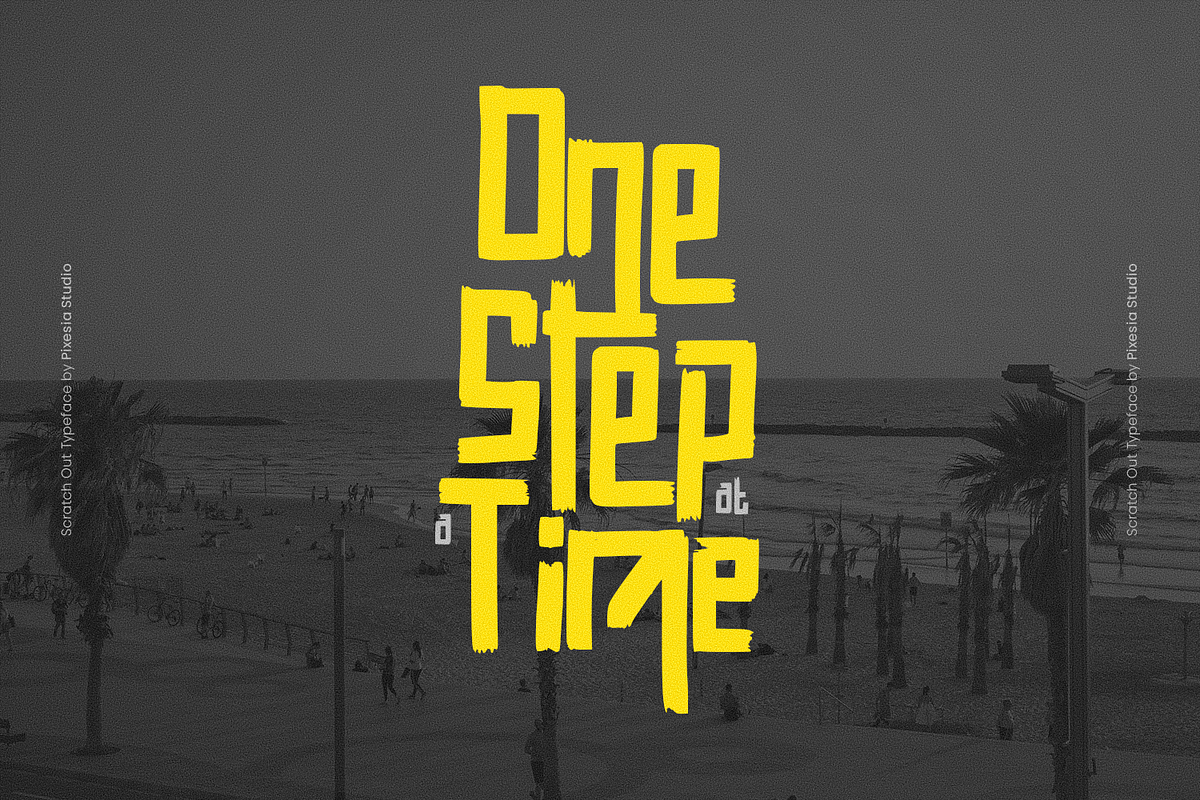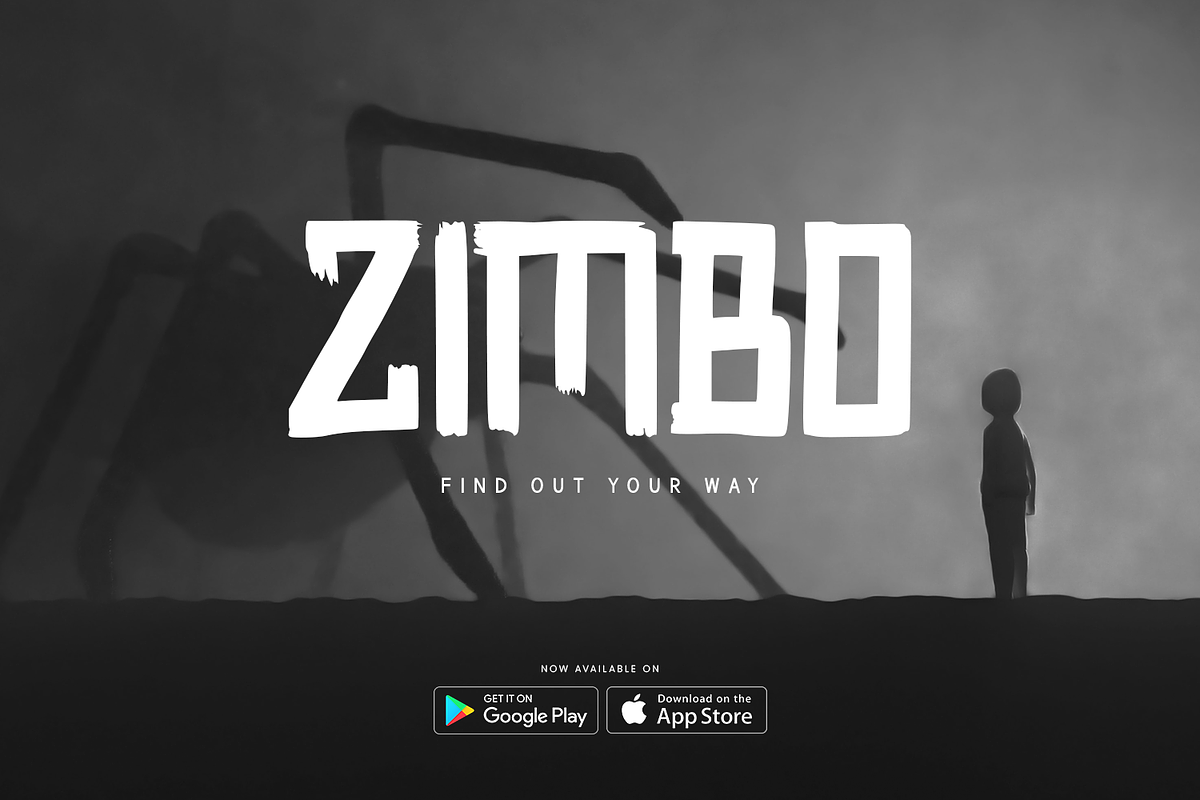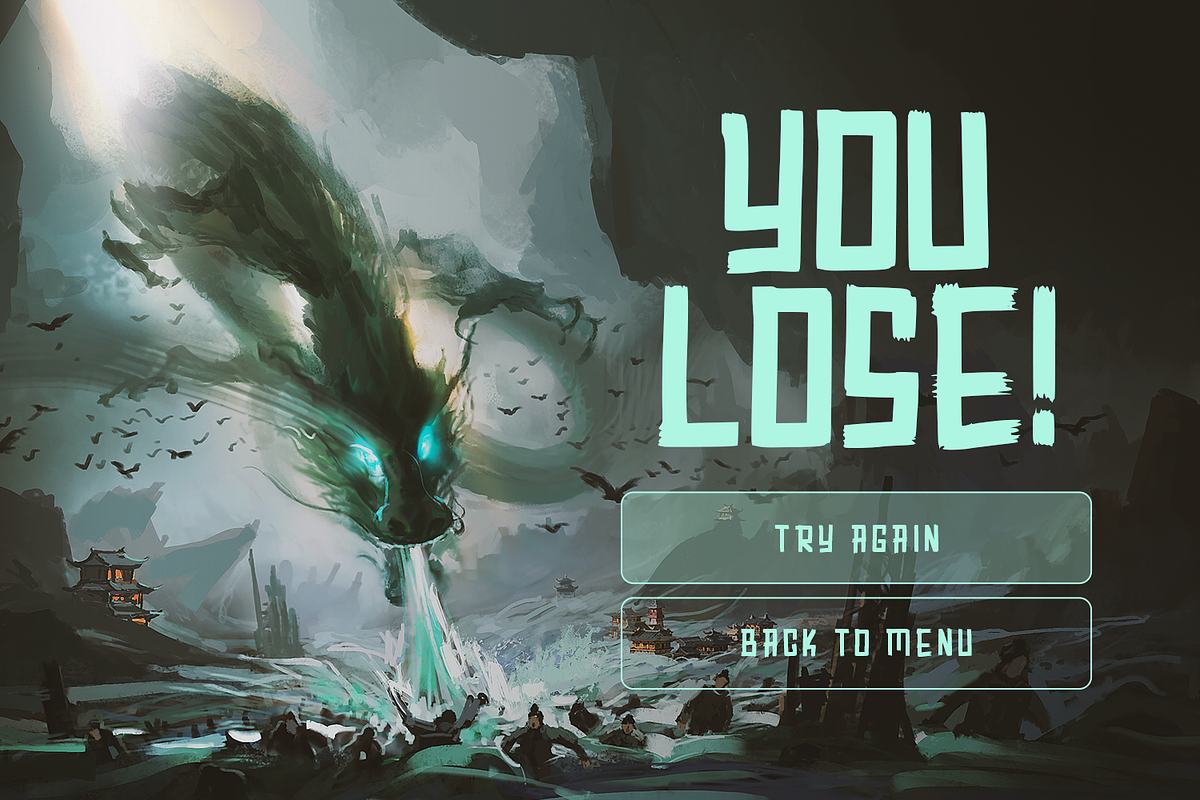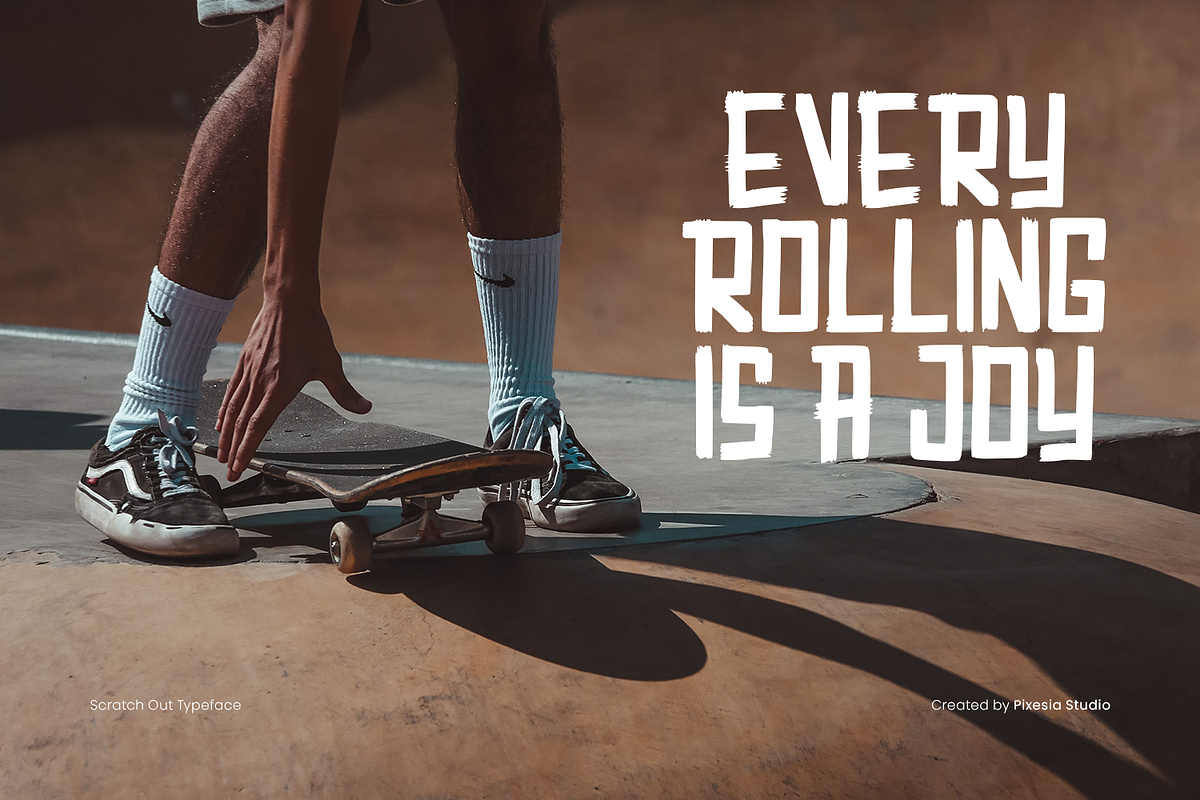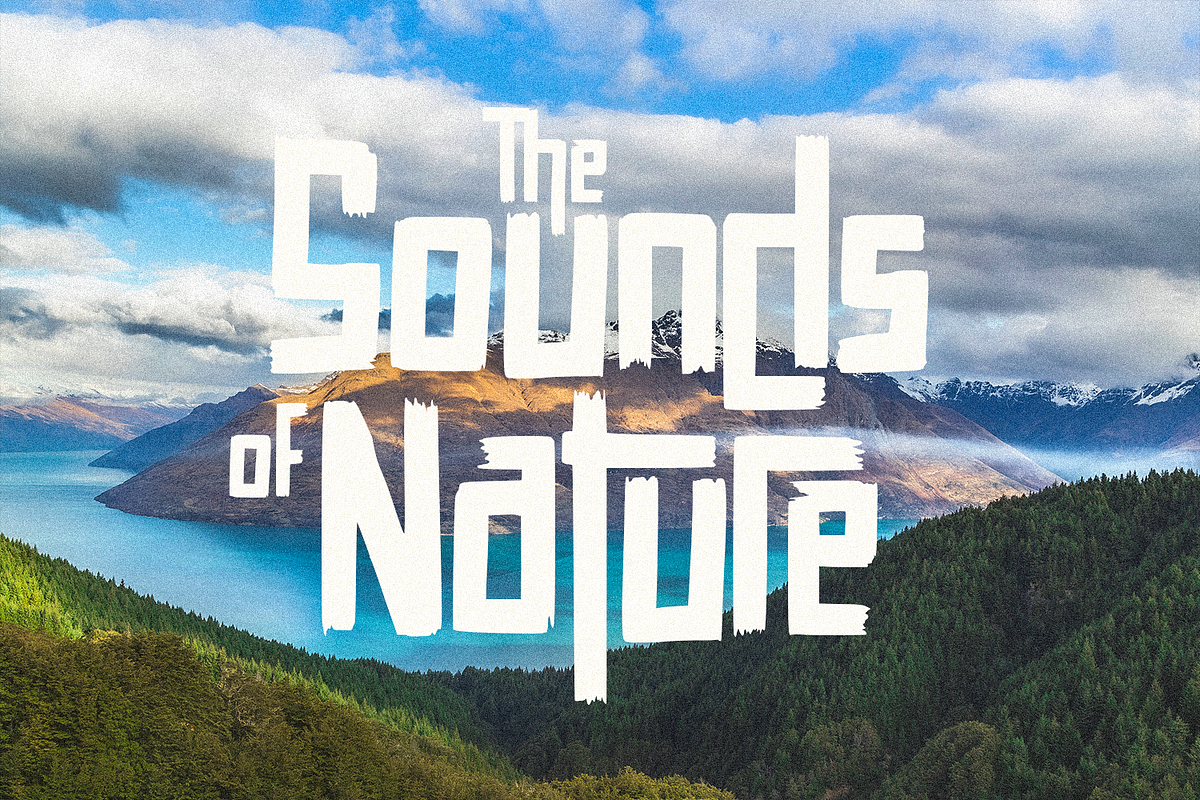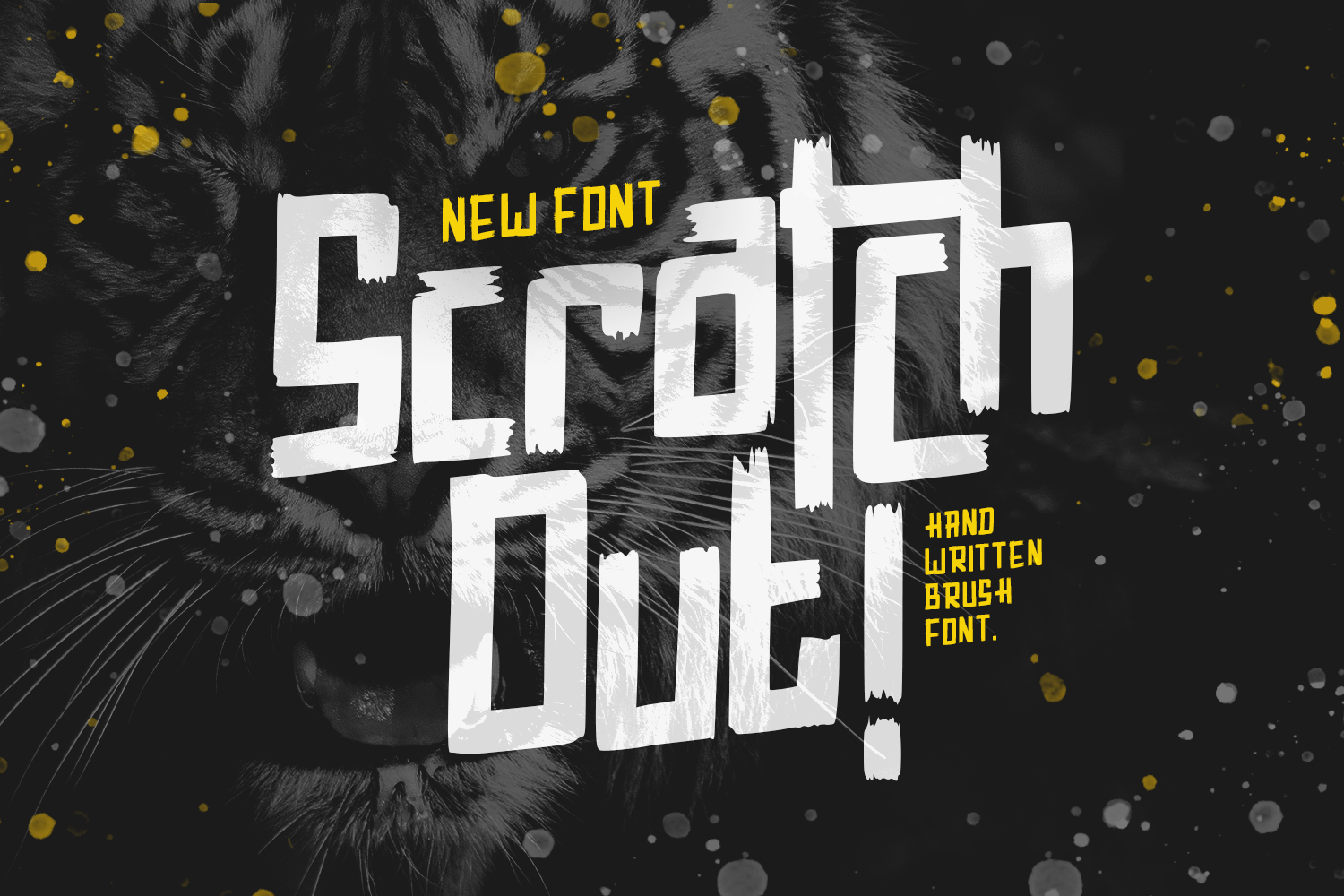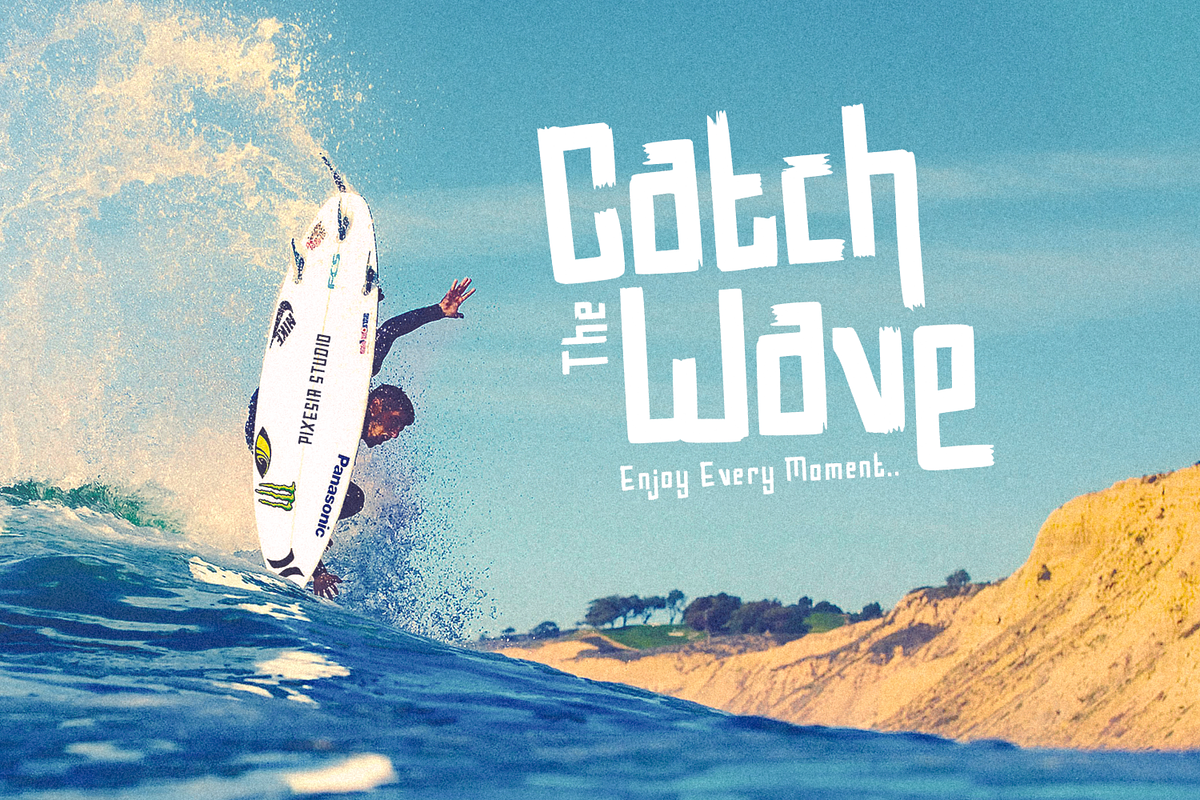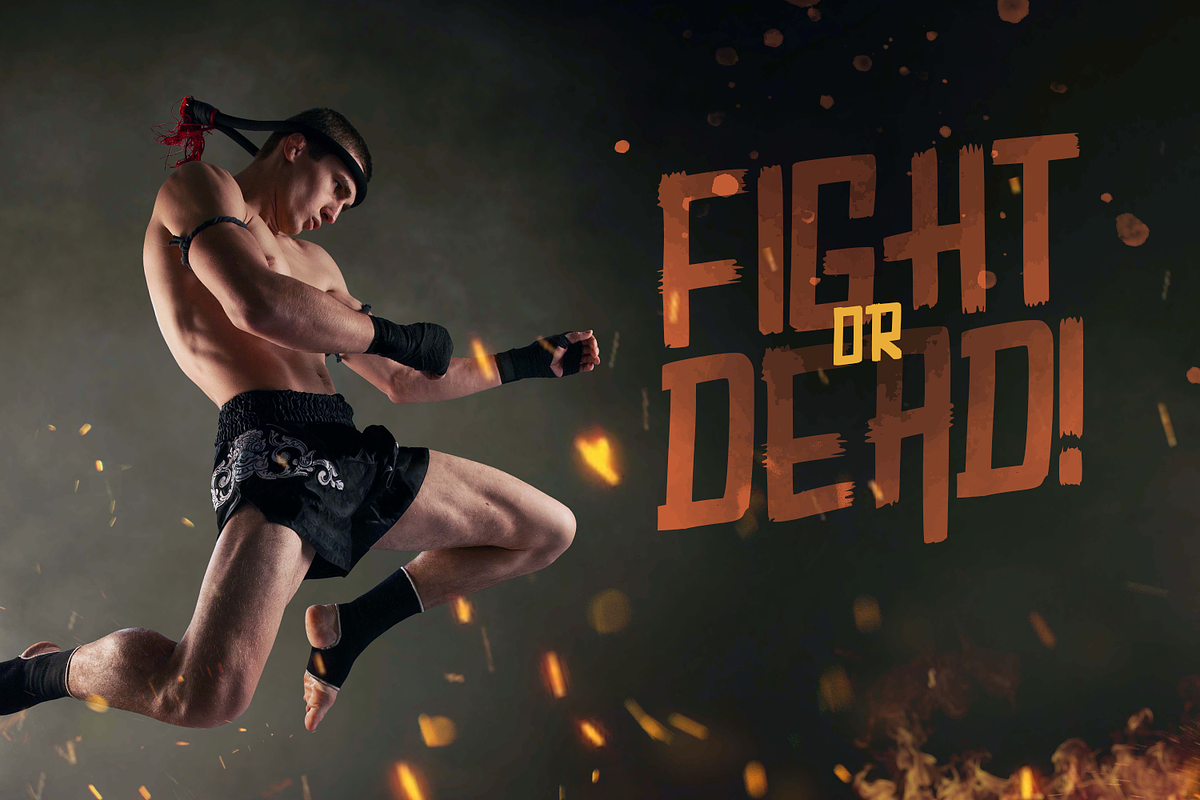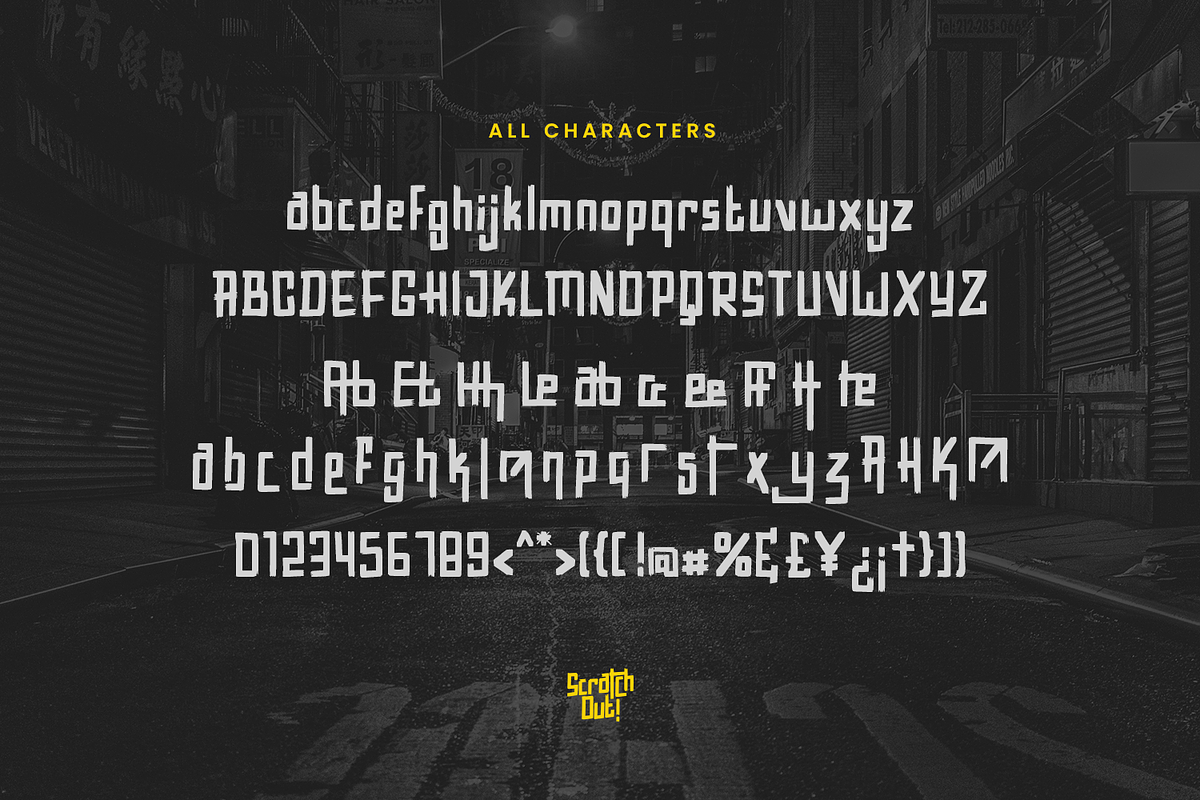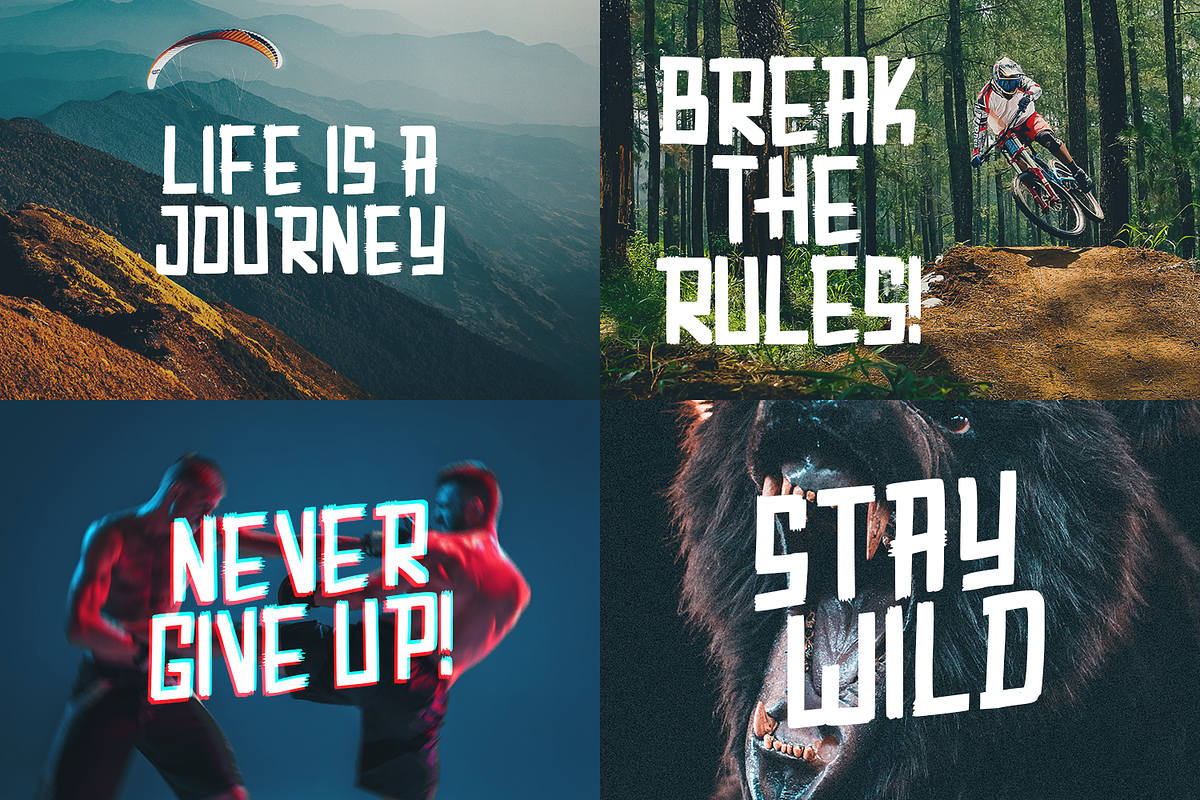
Scratch Out - Urban Brush Font
Introducing Scratch Out - Urban Brush Font
Scratch Out is an edgy and modern brush font that is perfect for adding a rough, urban look to your designs. The brush strokes give it a handmade, authentic feel that is perfect for streetwear brands, music album covers, posters, and more. With its bold and rough style, Scratch Out is sure to make a statement and catch the eye of your audience. This font is versatile and can be used for a wide range of projects where you want to create a raw and energetic look.